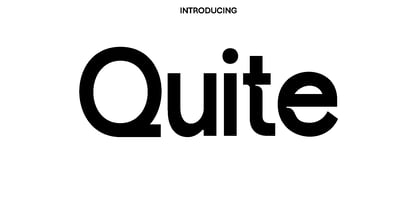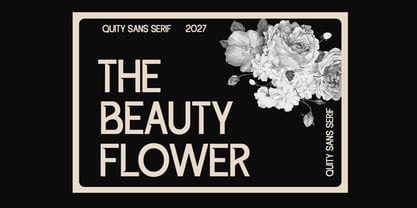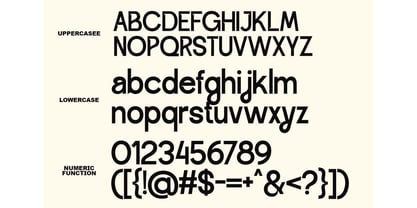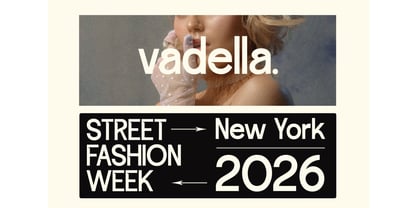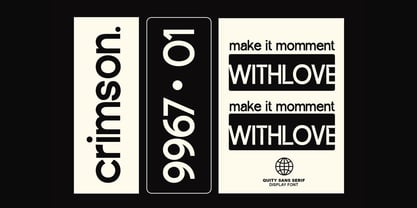
Quite
Die Schriftfamilie Quite wurde von Olivia Love entworfen und von Only Fonts veröffentlicht. Quite enthält 1 Stile. Mehr über diese Familie
Quite is a calm yet confident display typeface designed to bring quiet clarity and polished character to brand and editorial work. Its refined shapes and balanced spacing make headlines feel composed, while open counters and smooth curves keep reading effortless across print and digital. Subtle detailing lends distinction in logos and mastheads, and the steady rhythm supports clean hierarchy for campaigns, covers, and content-driven layouts. Story and style - Quite draws from contemporary editorial sensibilities, focusing on open apertures, steady verticals, and measured contrast for a crisp, modern silhouette. - The design favors clarity at impact sizes while preserving graceful forms for titles, pull quotes, and hero lines. Where it shines - Brand identities that need versatile wordmarks, submarks, and headlines that feel unified from packaging to social. - Editorial systems for books and magazines where cover lines and section openers must guide the reader with ease. - Marketing touchpoints like posters, advertisements, blog headers, and photography-led layouts that require a clear, premium message. Use cases - Logotypes that highlight distinctive letter pairs and spacing for a signature feel. - Campaign headlines, product names, and quote cards with tight tracking and deliberate line breaks for strong grid discipline. - Social graphics and banners where fast legibility and a composed voice are essential. Standout features - Complete character set with uppercase, lowercase, numerals, symbols, and punctuation for comprehensive display systems. - Functional proportions and screen-conscious metrics that keep edges crisp in interfaces and large-type settings. - Multilingual support to maintain consistent voice across regions and languages. Design tips - Pair Quite with a neutral grotesque for body copy to balance clarity with warmth. - Use tighter tracking for a refined, editorial tone, or a touch looser for airy, image-led layouts. - Let negative space carry the mood: generous margins and considered line breaks amplify rhythm and presence. Voice and vibe - Modern, composed, articulate, and brand ready. - Ideal for teams seeking typography that looks tailored out of the box and scales from logo to layout with ease.